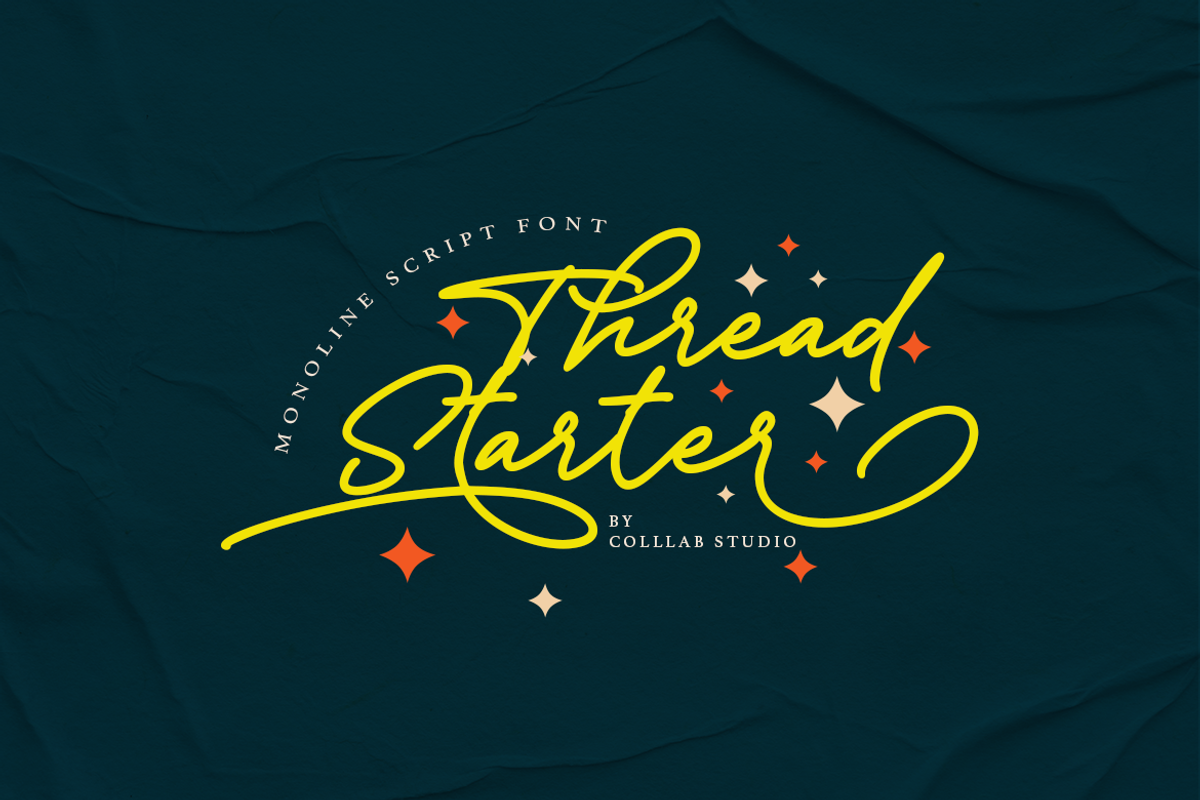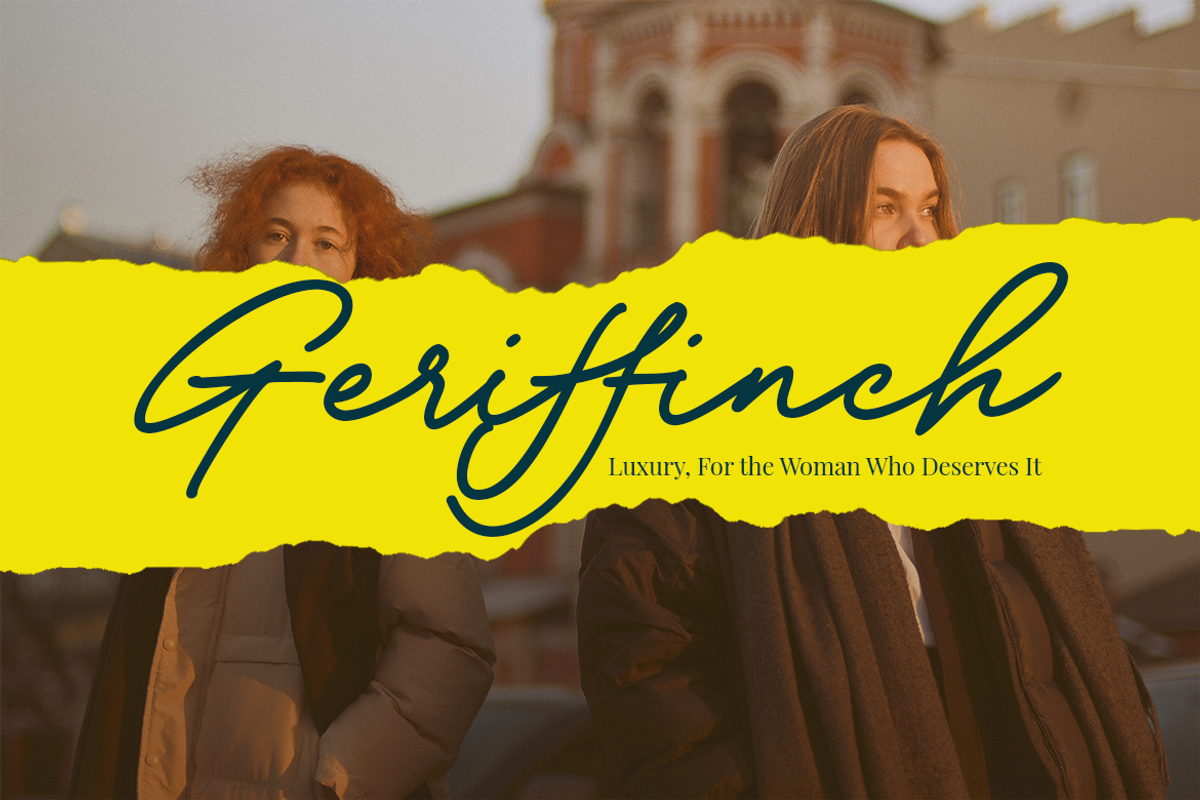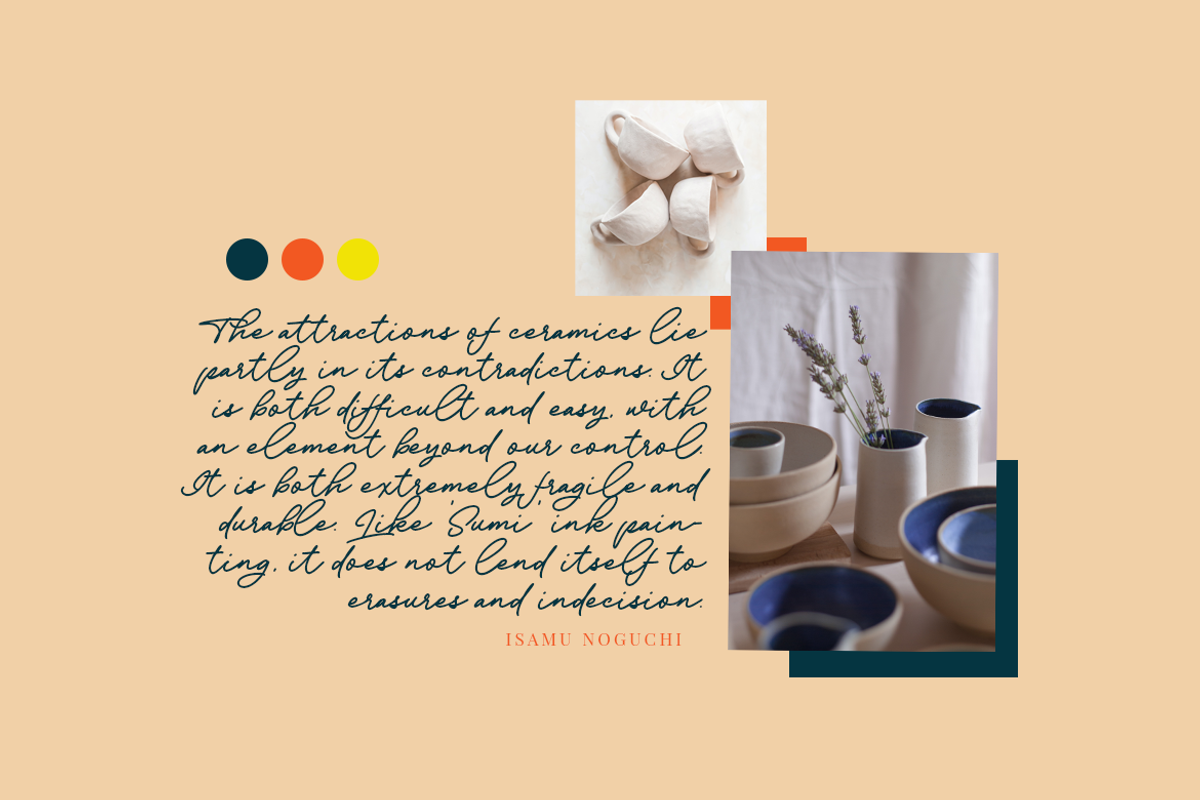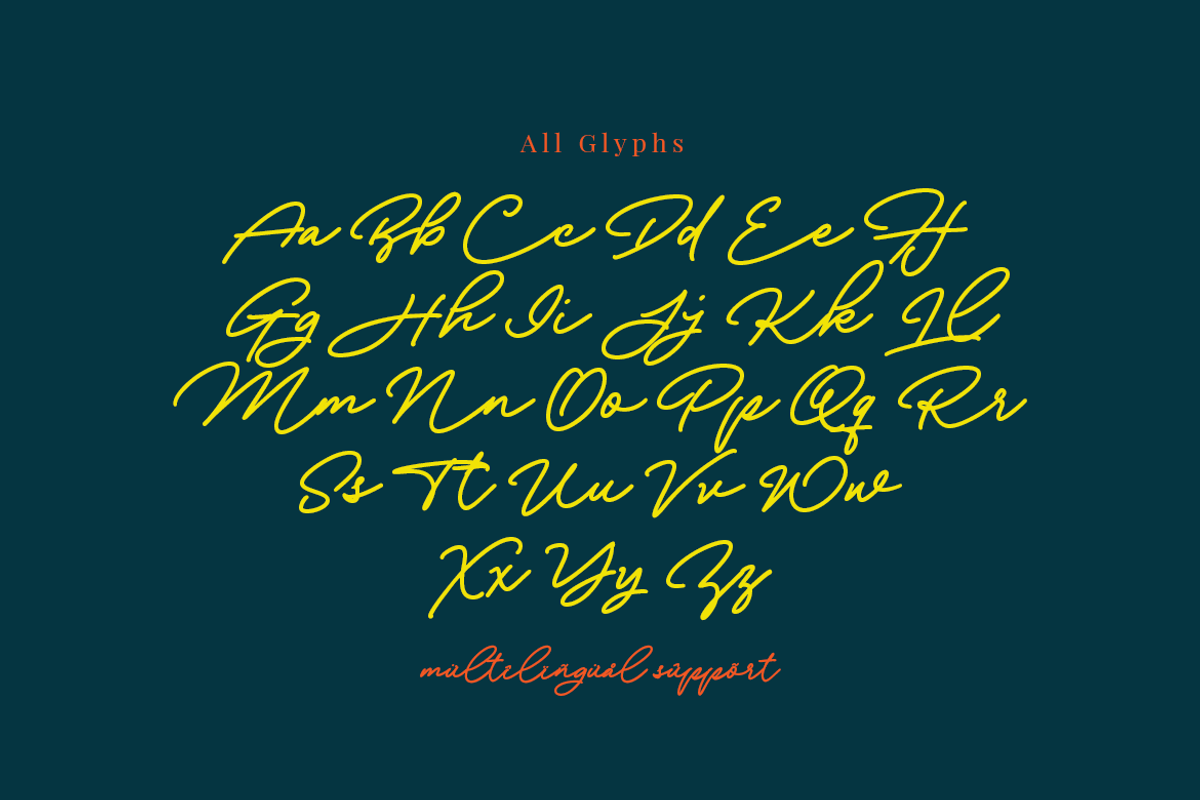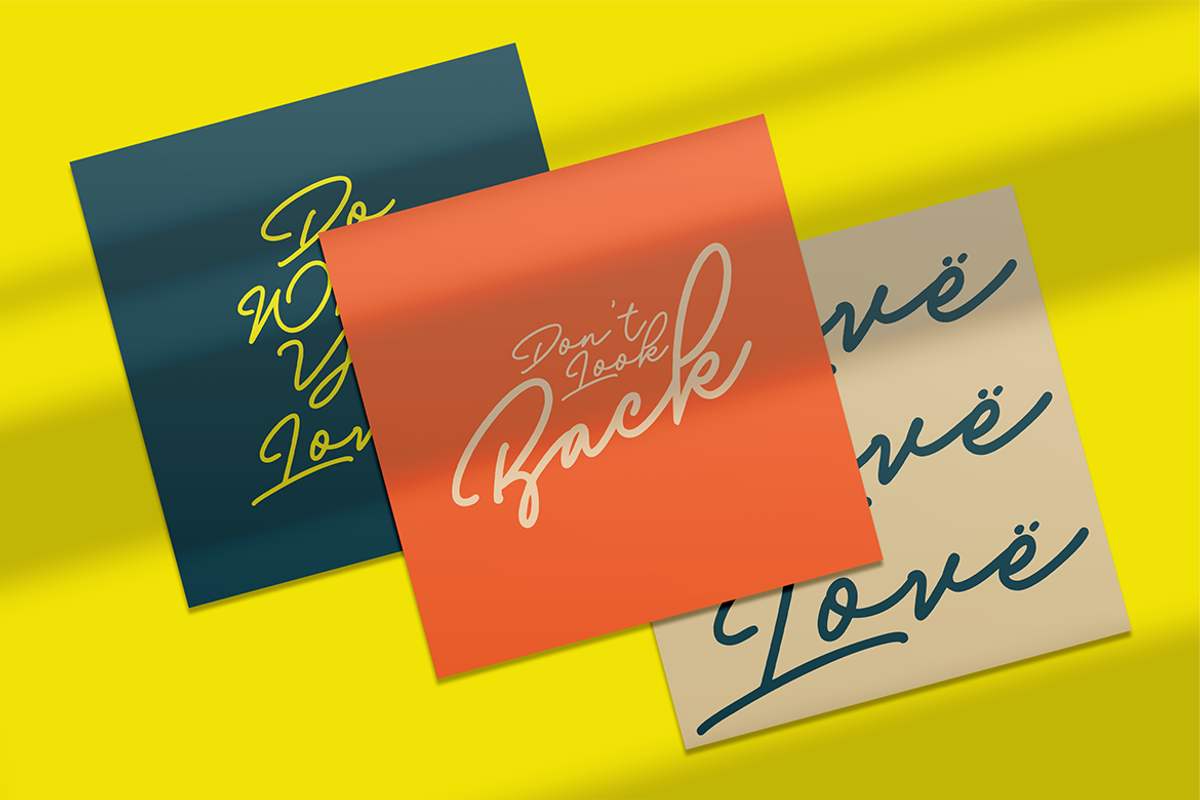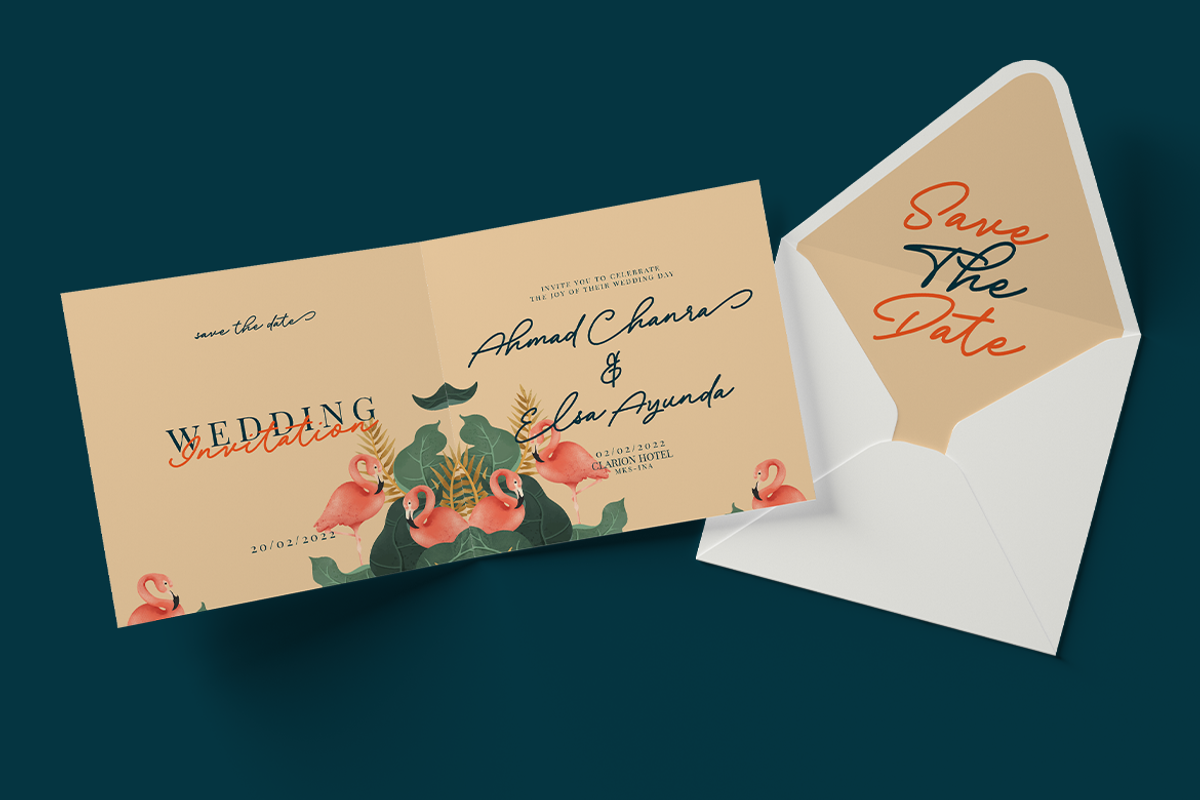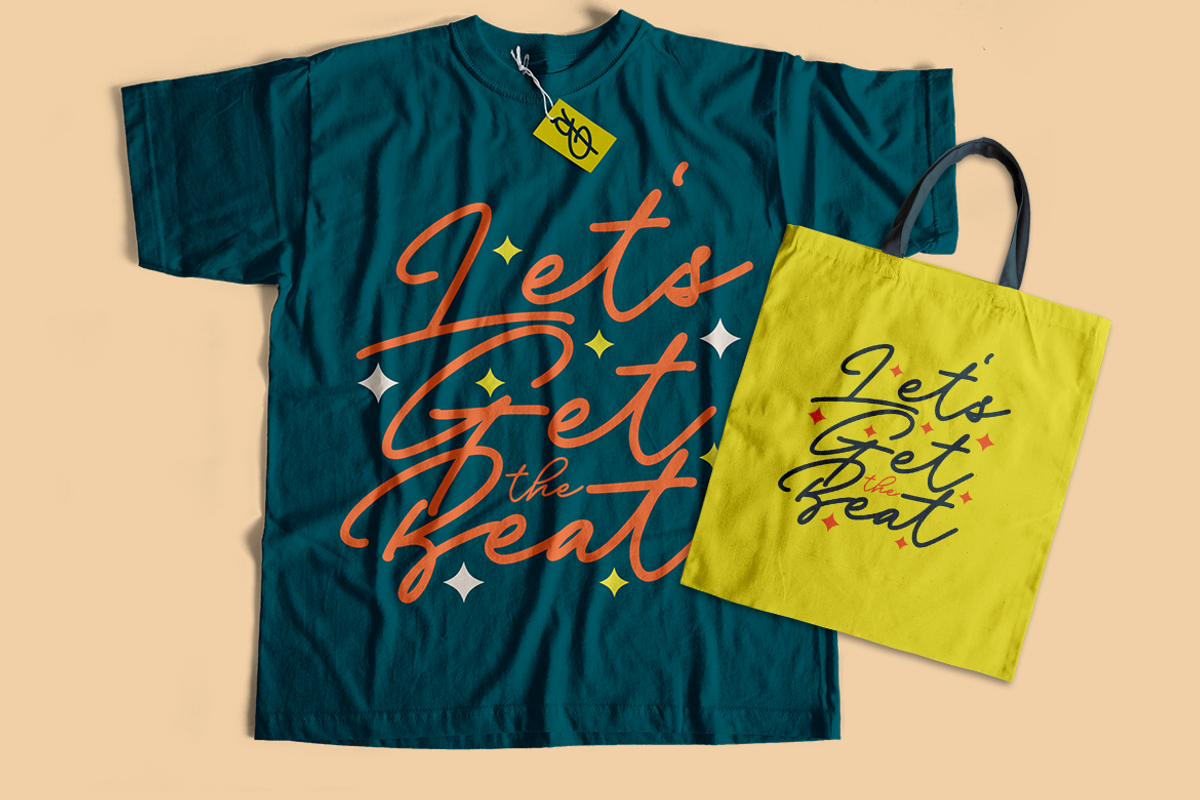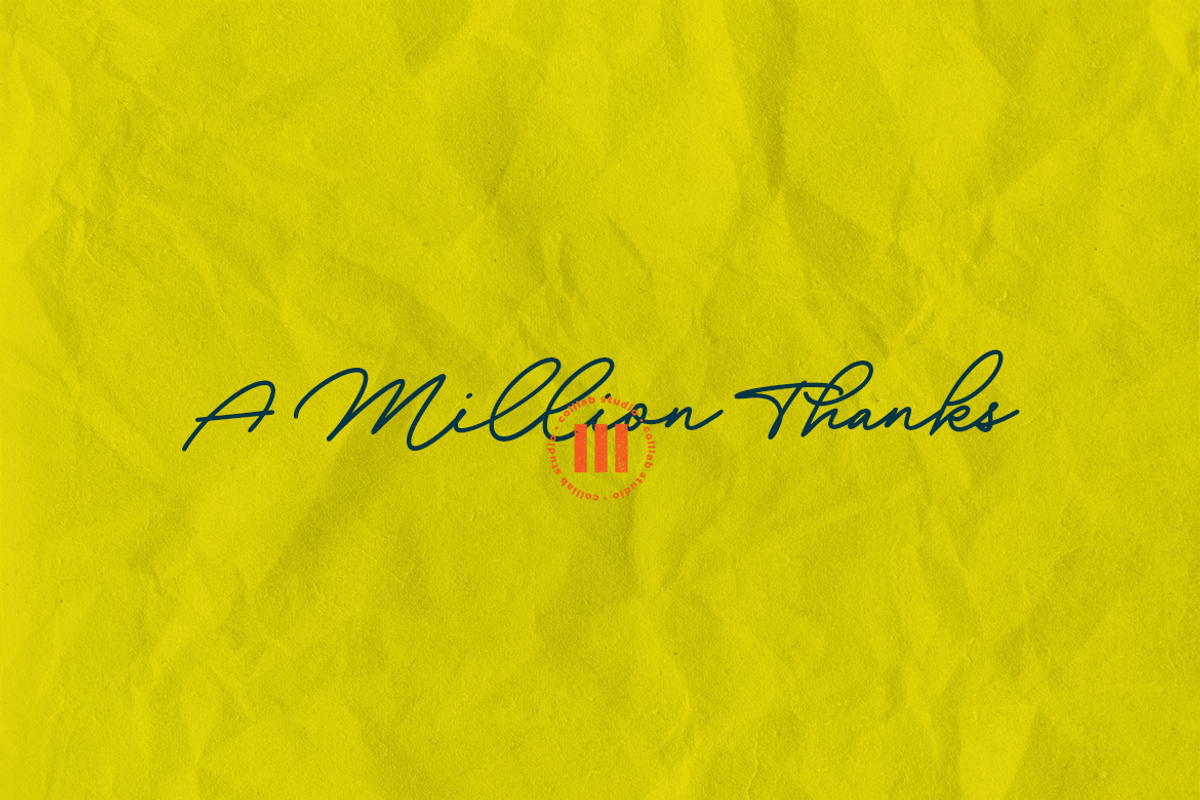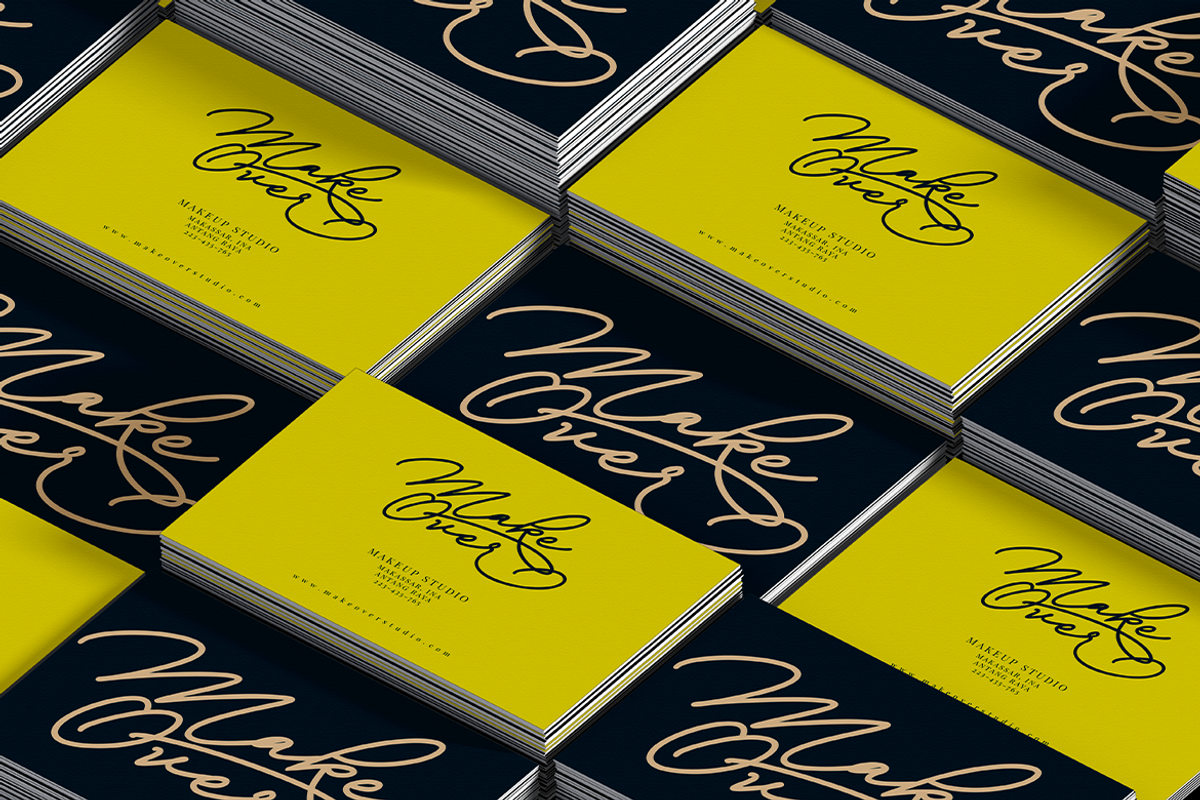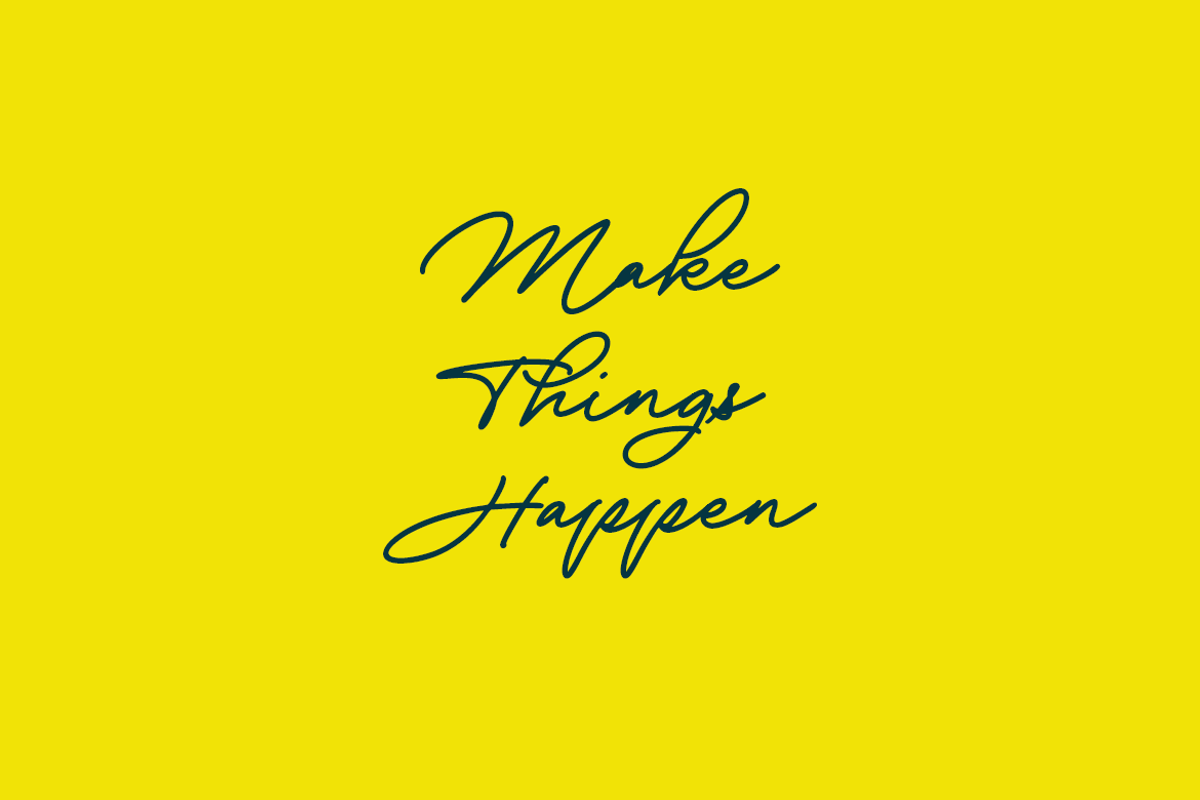
Thread Starter | A Monoline Script
Not being able to communicate trustworthiness, authority and professionalism? Is your brand lacking personality too?
That’s where Thread Starter come in. Our fonts have been exclusively designed to communicate trustworthiness, authority, and professionalism. We are here to serve you with the right fonts to help your brand stand out.
Use Thread Starter to communicate trustworthiness, authority and professionalism straight into your audience’s heads. Your ideal clients will love the unique and high perceived quality of your brand on its own merit.
- 300 Glyphs,
- 49 Ligatures and swashes
- Sets Stylistic alternate
- Set of Ordinals
- Multilanguage Support ( 64 Languages )